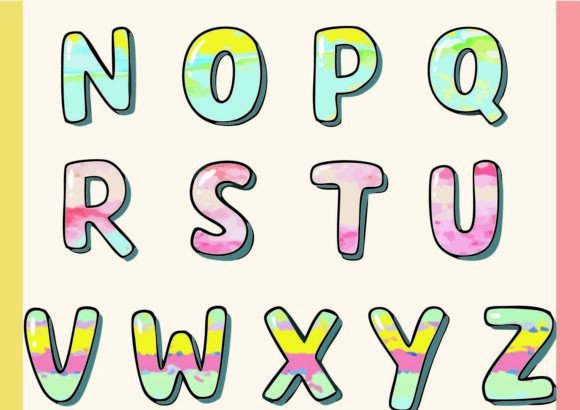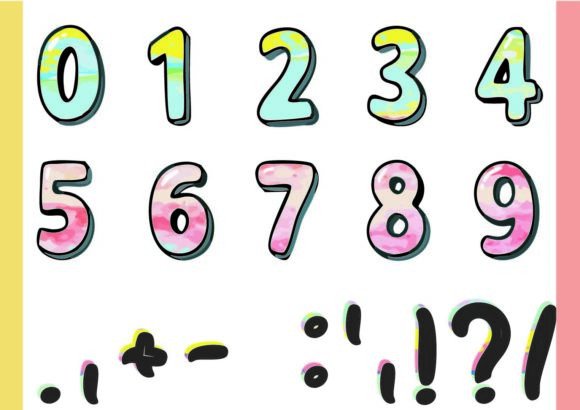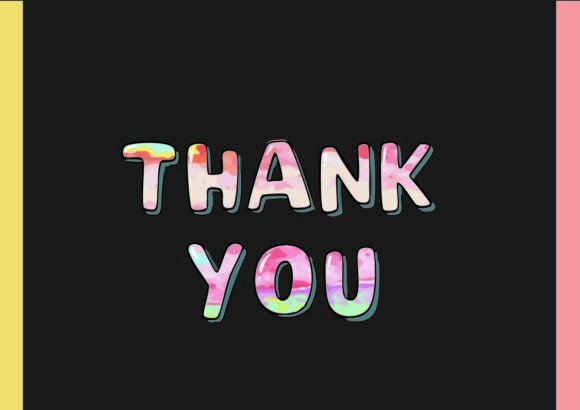
The Colorful World of Geneviene Font
I’ll never forget the day I stumbled upon Geneviene Font while working on a branding project for a children’s play area. I was on a mission to find the perfect font that would capture the whimsical and playful vibe of the brand. As I scrolled through my font library, Geneviene caught my eye – a stunning color font that seemed to scream “fun” and “creativity.” In this article, I’ll share my experience with Geneviene, its features, and how to make the most of this beautiful font.
What is Geneviene Font?
Geneviene is a color font or chromatic font, meaning every single glyph has a different set of colors. It’s like a colorful heaven, where each glyph could be a typographic painting! If you look closely, you’ll see complex sets of paths and connections in every single one of them.
Honest Review
- ✨ Unique and colorful glyphs that add a touch of personality to any design
- ✅ Supports OpenType features, glyphs, and stylistic alternates
Geneviene Font was inspired by the works of French typographer, Geneviève Walker. Walker was known for her love of color and typography, and her designs often featured intricate, hand-drawn illustrations. The creator of Geneviene Font aimed to capture the essence of Walker’s style, while adding a modern twist.